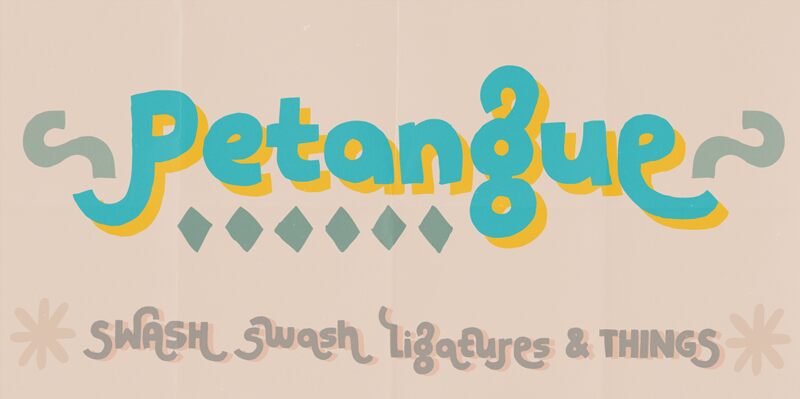
Petangue is a playful and organic font, crafted entirely by hand. Oozing with personality, this display-style typeface defies strict gender associations, making it a versatile choice for diverse design needs. From invitations and posters to headlines and quirky quotes, Petangue's swash ligatures and 62 unique ornaments lend a charming, handmade feel to any project. Its bold, cartoon-inspired aesthetic sets it apart, inviting creative exploration across print, digital, and beyond.
Petangue's blend of whimsy and versatility makes it an intriguing addition to any designer's toolkit, ready to infuse a touch of personality into a wide range of design solutions.